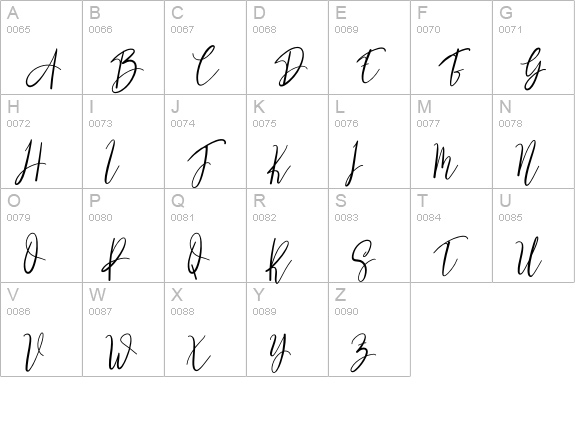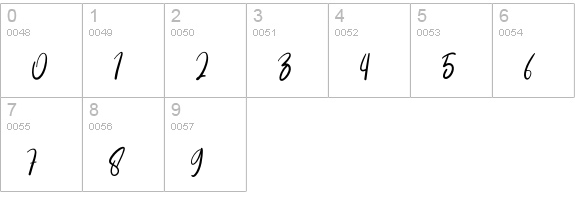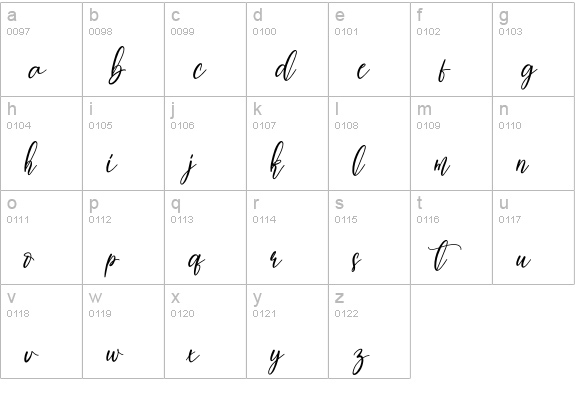
Moontea Font Details
Moontea is a free for personal use font in the Script > Handwritten category, designed by scratchones. It has been downloaded 10 times and is available for Windows, Mac and Linux.
Moontea Font is a whimsical and elegant typeface that brings a touch of magic to your designs. With its delicate curves and graceful lines, Moontea Font is perfect for adding a dreamy and ethereal vibe to any project. Whether you're designing a wedding invitation, branding materials, or crafting a mystical logo, Moontea Font will captivate your audience with its enchanting charm.